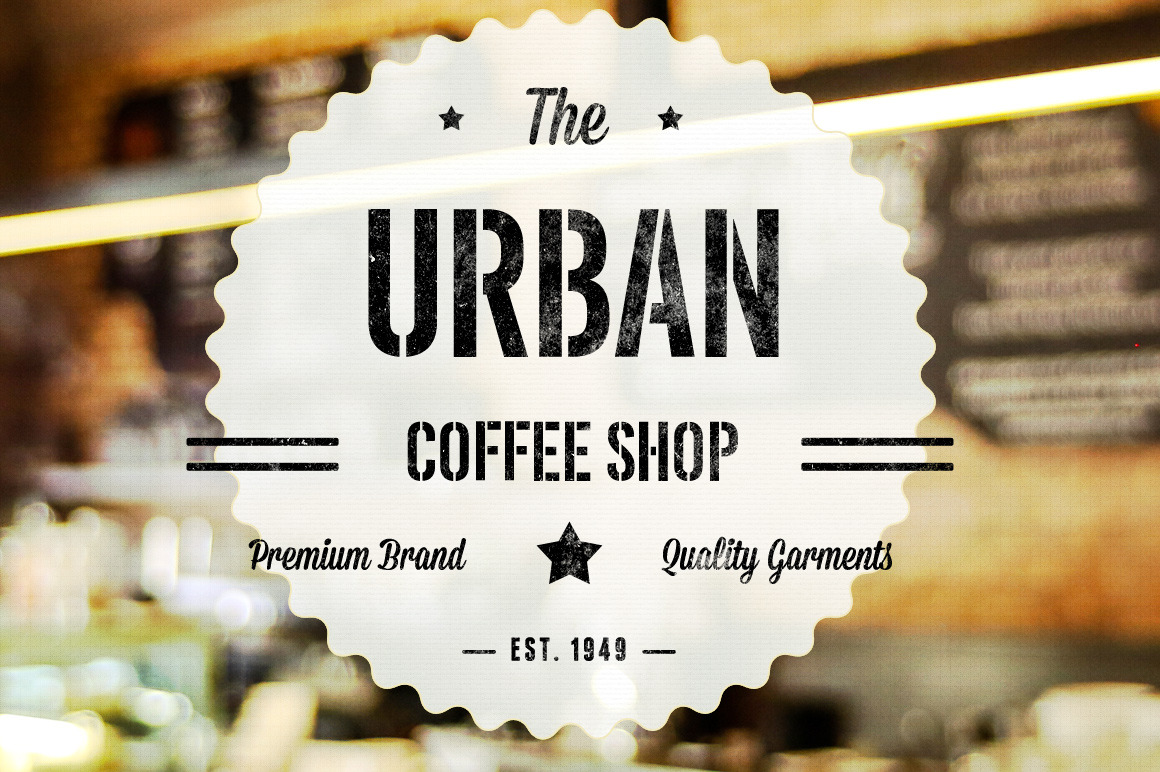
Urban Stencil Display Font
Urban Stencil - Display Sans-Serif Font
Urban is a modern and clean display font. Its versatility and neat vibe will brighten up each of your designs. Have fun with this beautiful font and explore its endless variations. This font is perfect for any project that needs a touch of urban flair. The stencil style is perfect for street art, graffiti, or any other project that needs an edgy look.
Great for posters, logos, packaging, invitations, website titles, T-Shirts and more.